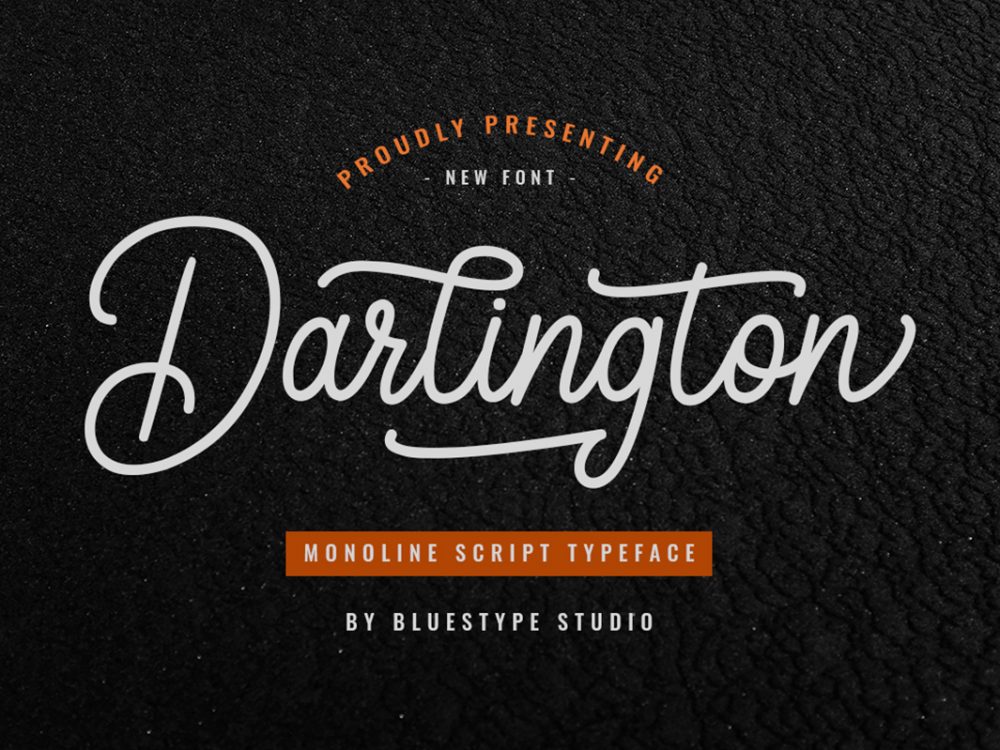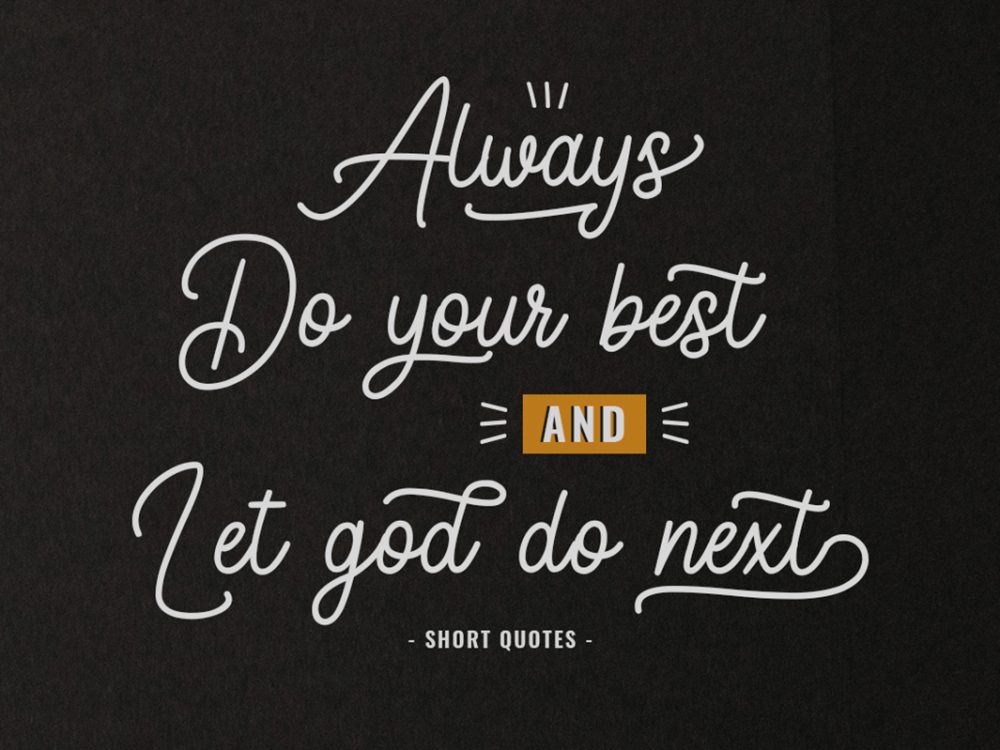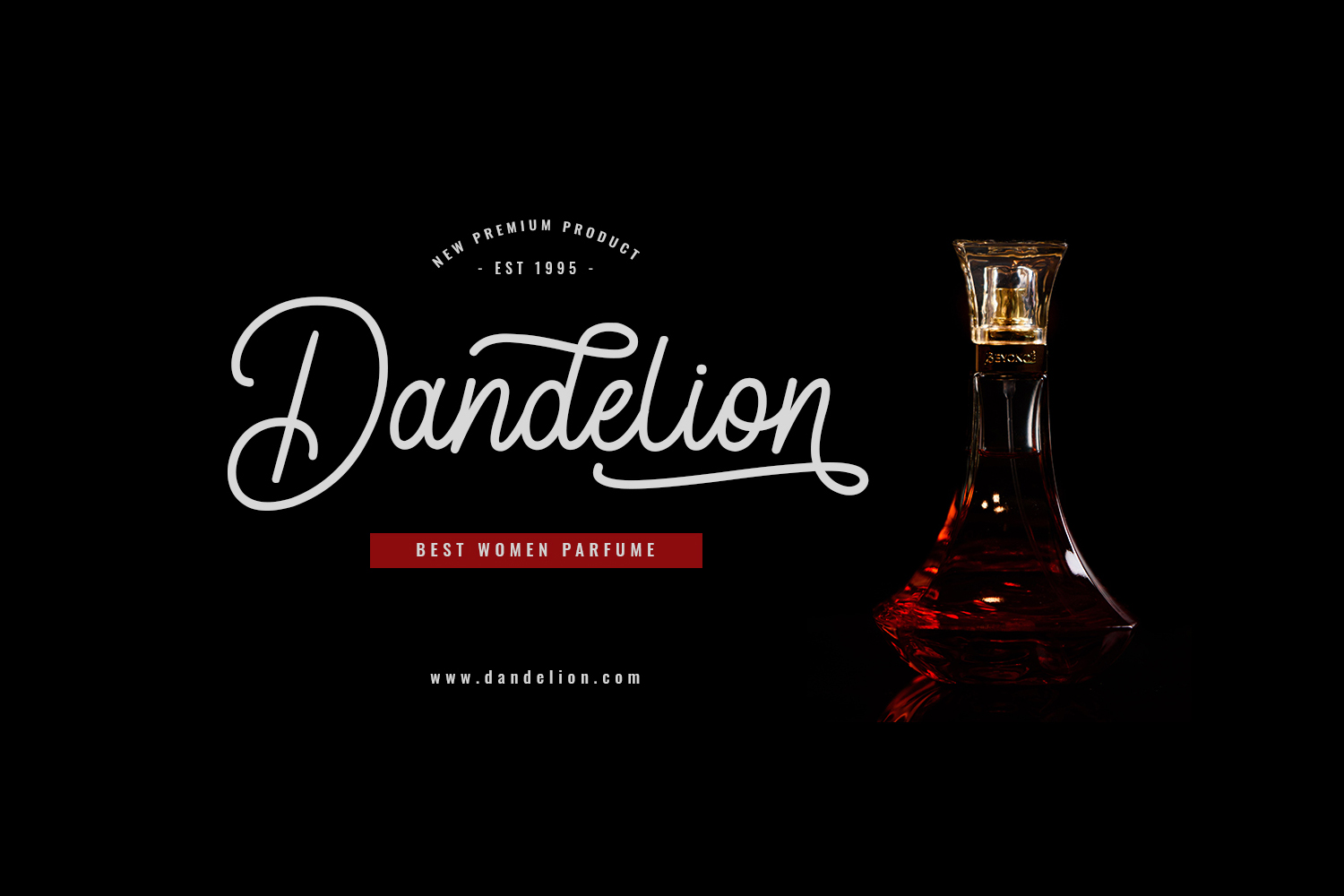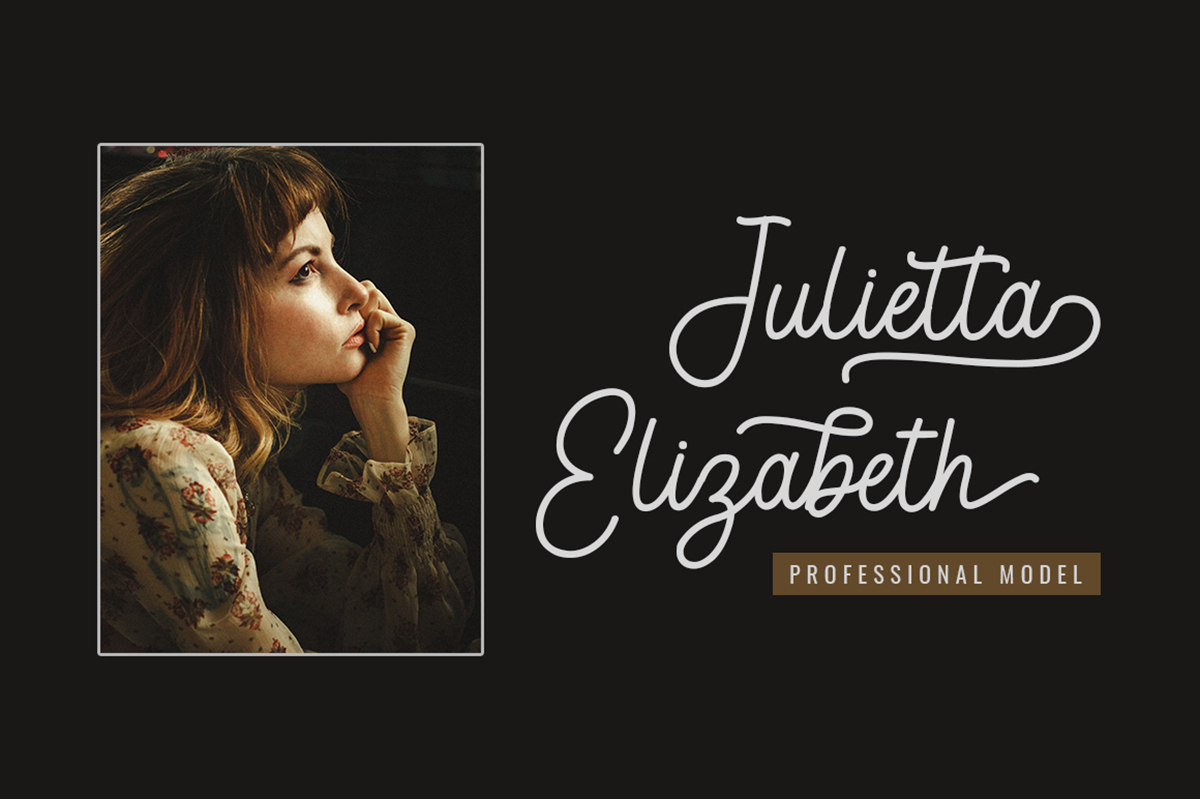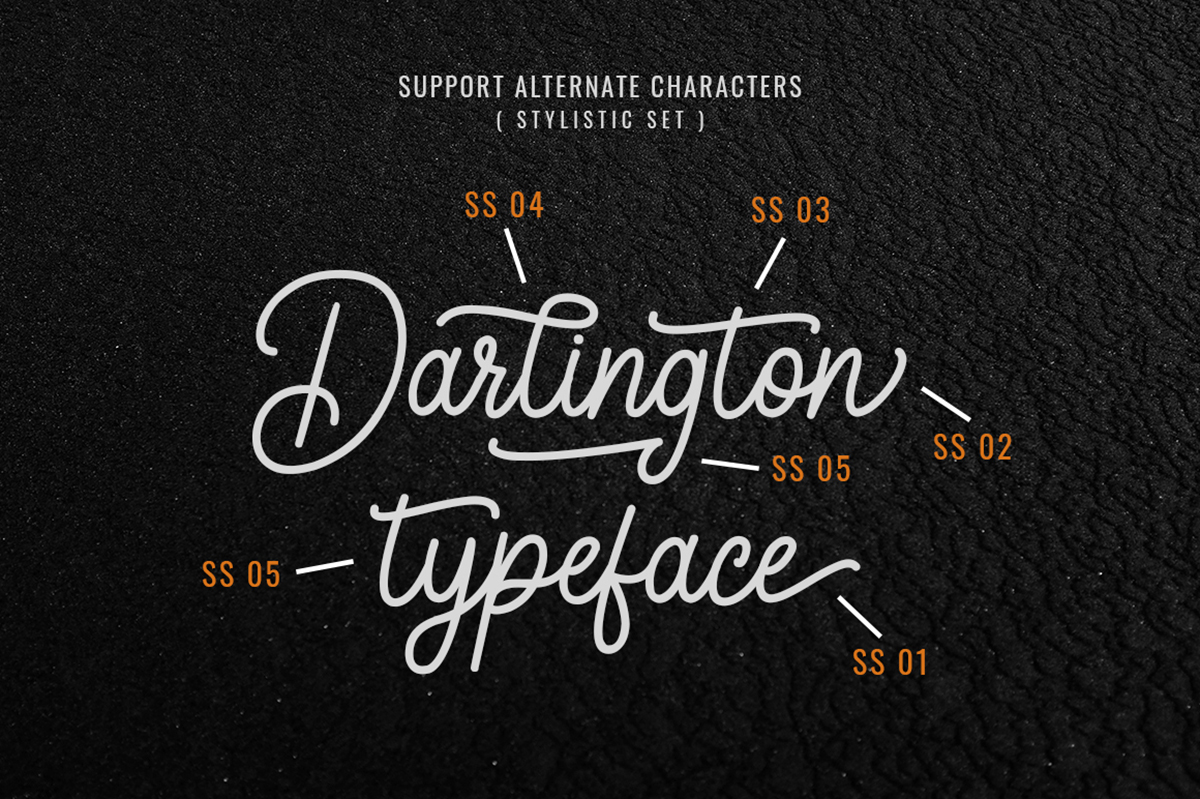
Darlington Free Font
Darlington Free Font is an interesting calligraphic font with an elegant style. This font offers your personal touch to your latest art project with an elegant, classy, ​​and modern look. You can use this font to create memorable posters, wedding invitations, greeting cards, branding, flyers, t-shirt and pillow prints, and more. If you like it don’t forget to check out the full version.
Author: Bluestype Studio